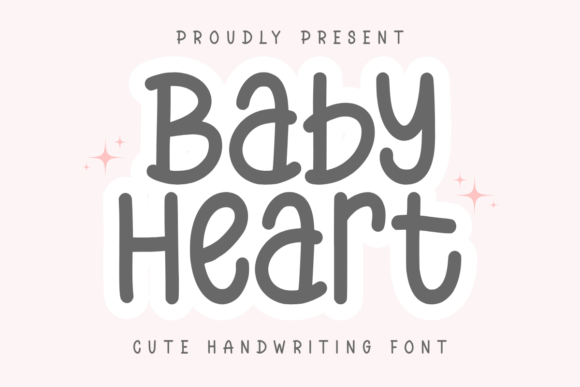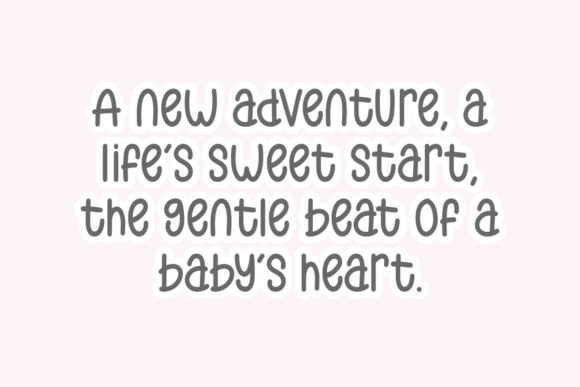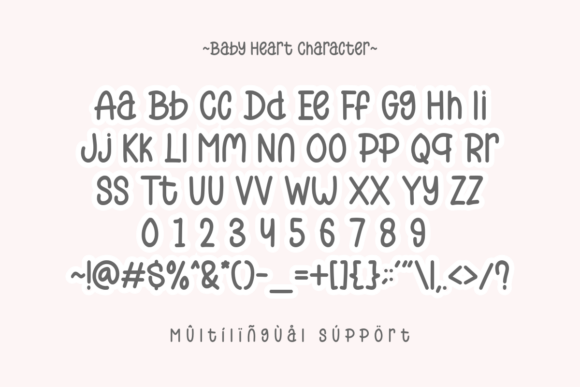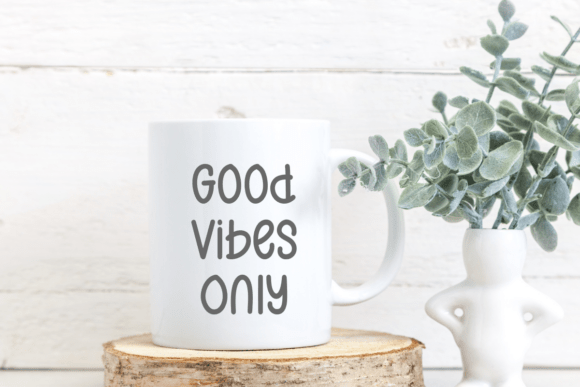
Baby Heart Font: Cute Handwritten Font for Cricut & DIY Projects
About the Baby Heart Font
Experience the unique personality of Baby Heart Font, a font designed for impact. Baby Heart is a cute and playful handwriting font, perfect for planners, stickers, cards, quotes, and craft projects. Ideal for creative moms who love DIY, journaling, and Cricut crafts!
Its playful, rounded forms make Baby Heart ideal for projects needing a touch of youthful charm. Consider it for branding aimed at children’s products, scrapbooking, invitations, or social media graphics. However, its informal nature makes it unsuitable for body text or applications requiring high readability, such as websites or long-form content.
Pair Baby Heart with a clean sans-serif like Lato for a balanced contrast, or a classic serif like Garamond for a touch of sophistication. For a more whimsical feel, a playful script font could also complement its personality.
Baby Heart’s overall personality is undeniably cheerful and approachable, conveying a sense of warmth and friendliness. Avoid using it in contexts requiring seriousness or professionalism.